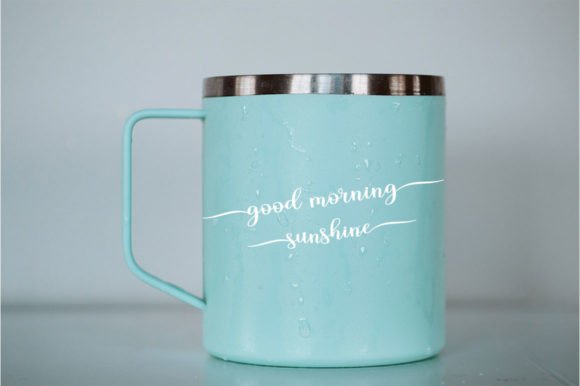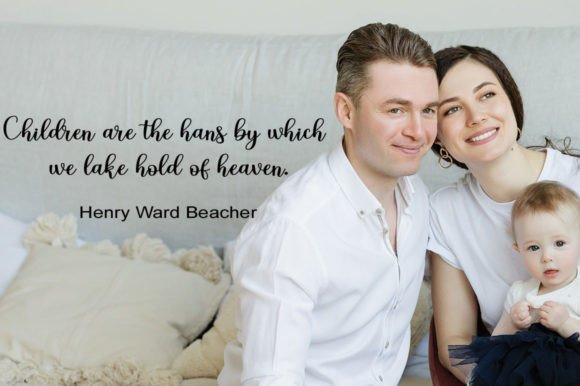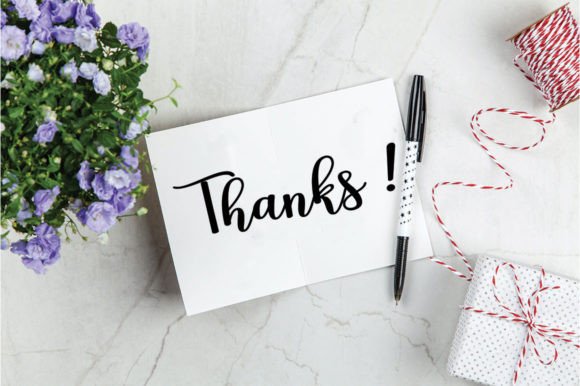
Shanthos Font
About Shanthos Font
Shanthos is a free-flowing script font crafted with a high-quality aesthetic, specifically designed for diverse applications such as packaging, invitation cards, flyers, mockups, event posters, and more. Its beautiful and balanced characters make it versatile, seamlessly fitting into various design contexts.
The free-flowing nature of Shanthos lends a sense of fluidity and dynamism to your text, making it well-suited for projects that require a touch of elegance and movement. Whether it’s packaging for a product or an event poster, Shanthos adds a high-quality vibe that captures attention.
The font’s PUA encoding is a noteworthy feature, allowing easy access to all the glyphs and swashes. This feature enhances the font’s usability, providing flexibility for designers to incorporate unique elements seamlessly into their projects.
Shanthos’ adaptability makes it suitable for both digital and print media. Its ability to complement various design elements ensures that it can enhance the visual appeal of invitations, flyers, and other promotional materials, contributing to a polished and professional look.
In summary, Shanthos is not just a font; it’s a versatile design tool created to elevate your projects with a free-flowing script that exudes high-quality vibes. Explore its balanced characters and dynamic feel, and let Shanthos add an extra layer of sophistication to your packaging, invitations, and more.